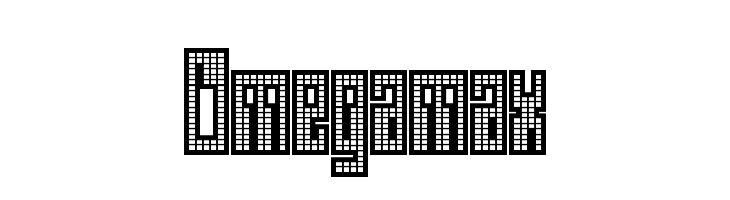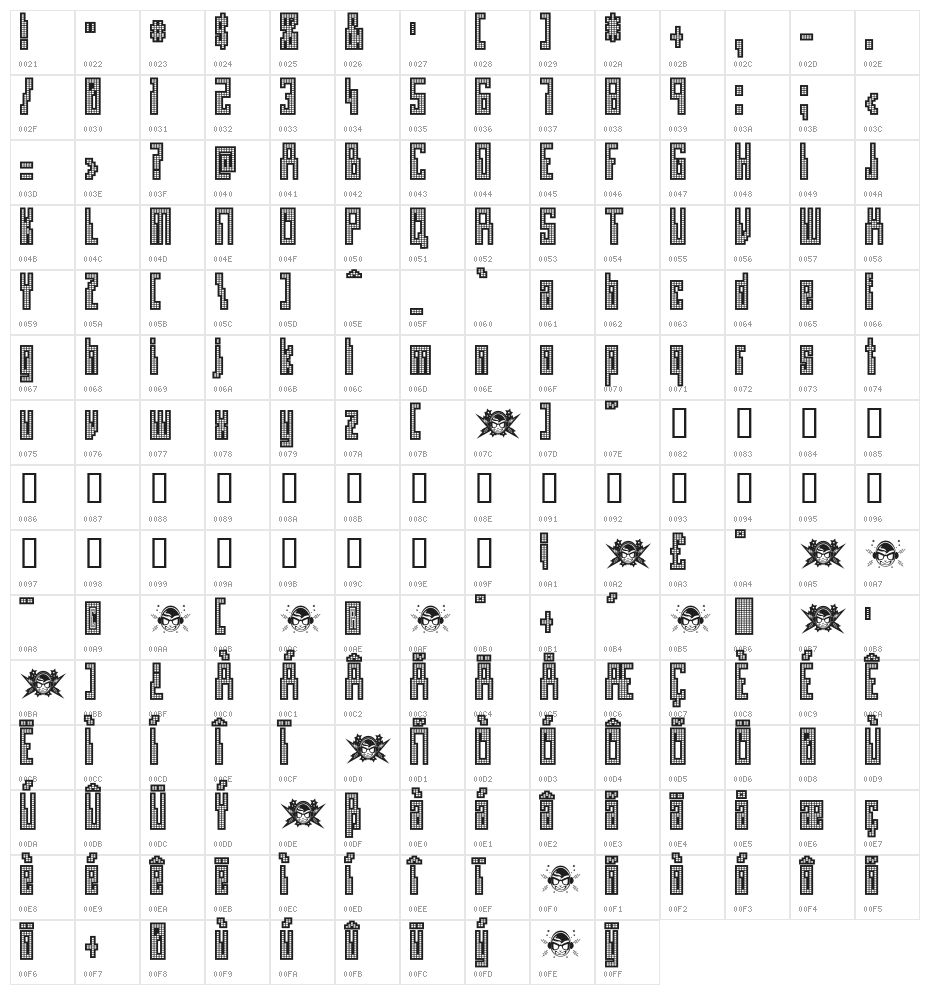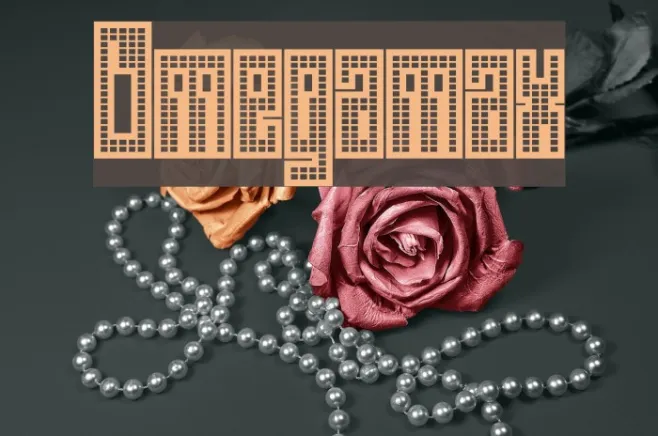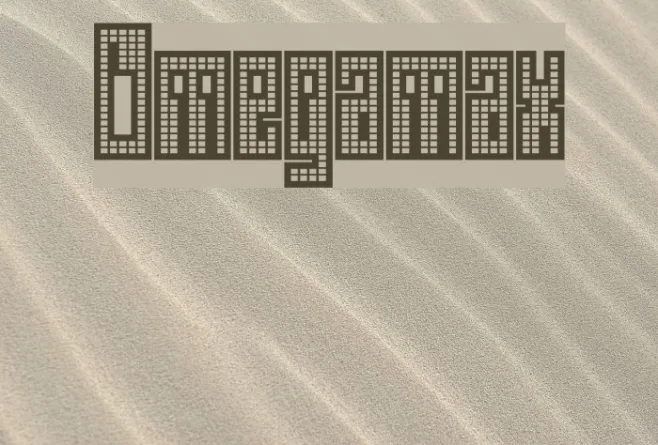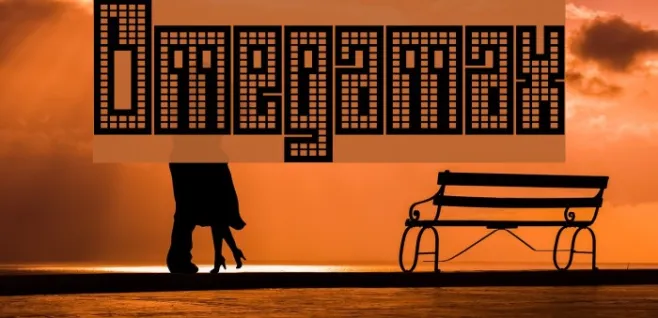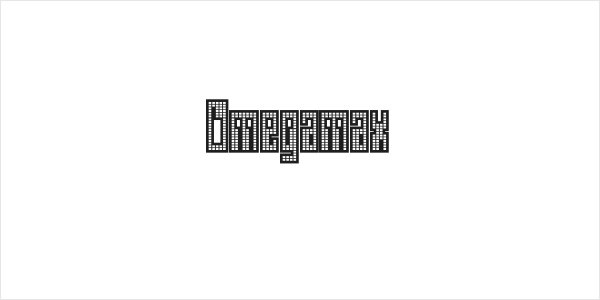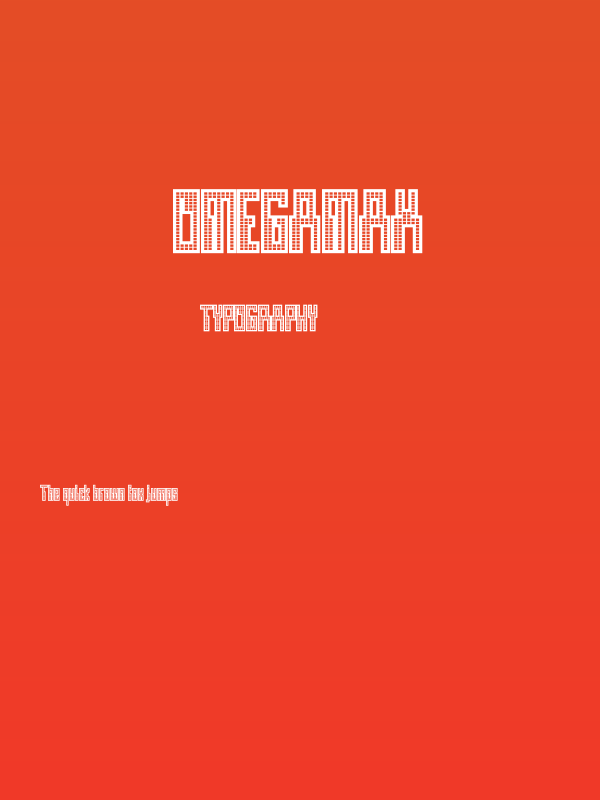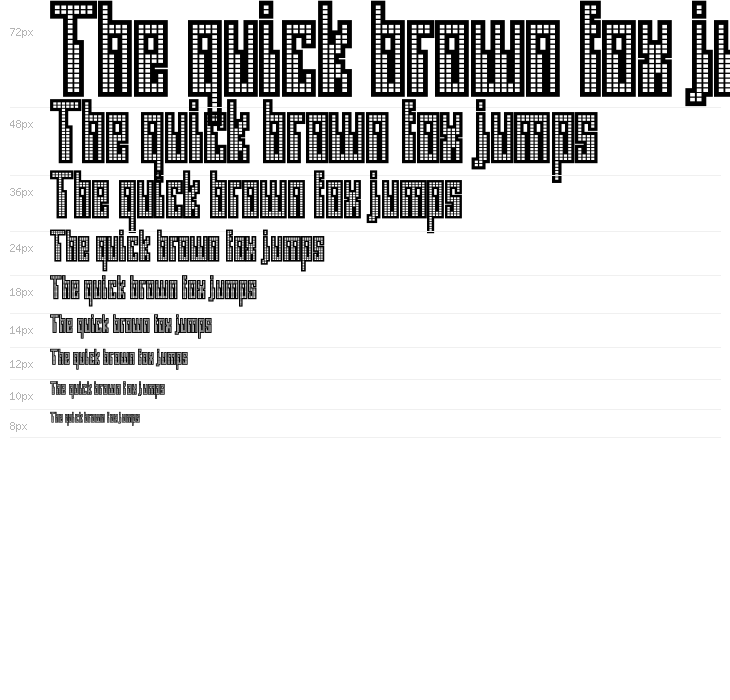
Omegamax Font
Omegamax Description
This font features a unique, grid-like design where each character is composed of small, square blocks, creating a pixelated effect. The characters are uniformly structured, giving a sense of order and precision. The uppercase and lowercase letters maintain a consistent height, while the numbers and special characters follow the same blocky pattern. This design is reminiscent of early digital displays or retro video game graphics, offering a nostalgic yet modern aesthetic. The font's geometric nature makes it highly legible, even at smaller sizes, while its bold presence ensures it stands out in any design.
| Overall Style | Retro, Modern |
| Proposed Projects | Ideal for retro-themed designs, video game graphics, digital art, and tech-related branding. |